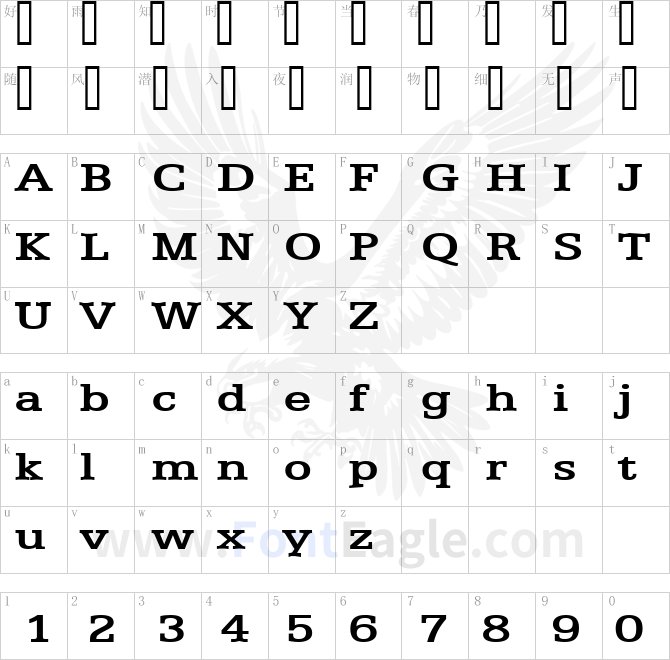
Eggo Extended Bold.ttf Font Image
Eggo Extended Bold.ttf Base Font Information
- Font name:Eggo Extended
- Font Subfamily ID:Altsys Fontographer 4.1 Eggo Extended Bold
- Font Full Name:Eggo Extended Bold
- Font Version:Altsys Fontographer 4.1 1/31/95
- Postscript:EggoExtendedBold
Eggo Extended Bold.ttf Characters Sample